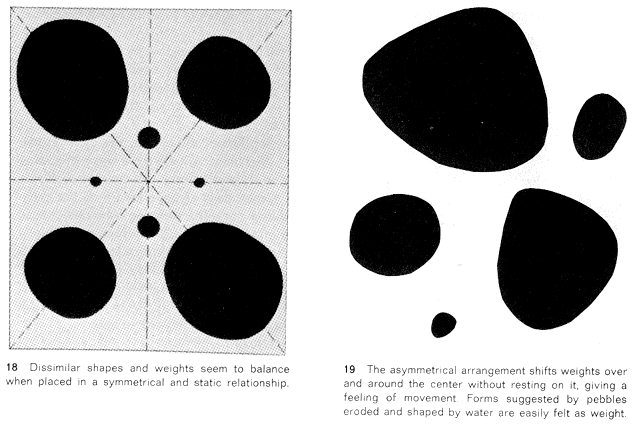
Stability and dazzle in letters
Here is an illustration from Letterletter by Gerrit Noordzij.
I may not have the proportions of the white squares to the black exact.
The idea is that when you look at this your brain does a 'gestalt switch' between seeing white squares against black one moment, and a framed cross the next.
Noordzij says "Real characters have built-in stabilizers that keep black shapes in the forground". In other words, they avoid the dazzle in this illustration.
I am interested in what you experienced type designers think of the problem of avoiding dazzle, particularly in text faces.
First of all, do you think Noordzij has it right? Is getting type to rest on the page a matter of balancing white and black? And what are your thoughts on doing it?
What would make me question whether the black/white balance is all of the story is the to me undesirable dazzle in many of the 'didone' class of type in small sizes. It seems like part of the story is just the thinness of the lines.
I was recently struck by how well Kent Lew's new face, Whitman, 'rests' on the page, at least judged by the samples on the internet. I am interested in how he and others have approached this problem.
Excellent topic, William. A typeface that dazzles is Vendome,
which is why I use it so successfully for display, but never text.
But I'm afraid I can't explain exactly why it dazzles, other
than the sharp serifs.
I think GN is totally right about the centrality of balancing the Black and White. I call it notan (a Japanese term). Ironically, notan is the reason his theories of type design don't make sense!
> "Real characters have built-in stabilizers that keep black shapes in the forground"
There is no foreground (at least not during immersive reading). We read notan, the balance, not the Black and White separately.
The relevance of notan to type design is complex, because we have to design "firm" atomic blacks, but half the whites (the sidebearings) exist on a more abstract level (since they only work in pairs). OpenType actually allows us to equalize the treatment of Black and White (by designing entire words which would get swapped in contextually), but I don't see many people doing that...
BTW, here's a nice little notan example from a book I have:
Thanks, Hrant. Very interesting. I hadn't thought of symmetry as a factor.
I am hoping that this will lure some others as well into spilling secrets of 'notan'. As well as Kent Lew's accomplishment, mentioned above, James Montalbano's Clearview seems to be an example where this was thought out carefully.
He notes on his website that the typeface is designed to reduce 'halation' experienced by older drivers looking at lighted signs at night.
What is this about?
For myself, I think that fineness of lines and points can create dazzle, as well as evenly spaced parallel lines. I think there are psycho-optical effects going on that affect comfort in reading, but they do seem to be complex.
> Montalbano ... notes on his website that ....
He is in fact is a clear proponent of notan (although he probably calls it something else) based on something he's stated once or twice: that he modifies the black of a letter based on what might be called its "potential" spacing. Granted, many type designers do that, but not all, and not all who think they're good...
>reduce 'halation'
I believe the term halation refers to a sort of 'erosion' of a letter's outline due to the refelcted light from its counter. Or vice versa.
E.g., the letter b's counter looks like a circle - at night, on a reflective background - instead of whatever shape it actually is.
[edit: That doesn't seem very clear. What I'm trying to say is that the aura, or 'halo', reflected from the counterforms, eats away at the letterform. And reduces visibility/legibility.]
The term halation refers to this:
Thanks, James!
Do you think that this 'halo' effect with bright letters at night also applies to some extent with text on paper, and the problem of 'dazzle'in text?
If you are willing to give us some of your guidlines on avoiding halation and other kinds of 'dazzle', I would be interested to hear them.
pardon my ingnorance, but how does one go about
reducing the effects of halation? or is that a trade
secret ; )
Take a look at this article, "Univesal Solutions" (by Bill Dorsey, for How Magazine, Feb.97, page 80). There's a few words about James' Clearview, and a small ilustration (interestingly, James' name is not even mentioned here, but I guess it must be the same project, right?).
Hmm. This is what Noordzij was writing about. But you are saying the figure/ground dazzle is not just a matter of proportion, but also shape?
Yes. If you "turn off the preview mode" when examining a font character, you are left with just a thin perimeter. In Vendome, the line is extremely angular, whether it goes round the outside or inside of a corner -- creating positive and negative shapes that are similar. You don't get this in say, Times, for although it has sharp serifs and high stroke contrast, its serifs are bracketed.